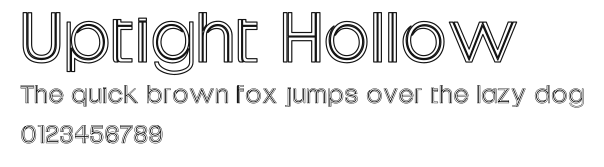
Uptight Hollow.ttf is a modern, elegant sans-serif font designed for ultimate readability and visual harmony. Perfect for branding, headlines, web design, and print materials.